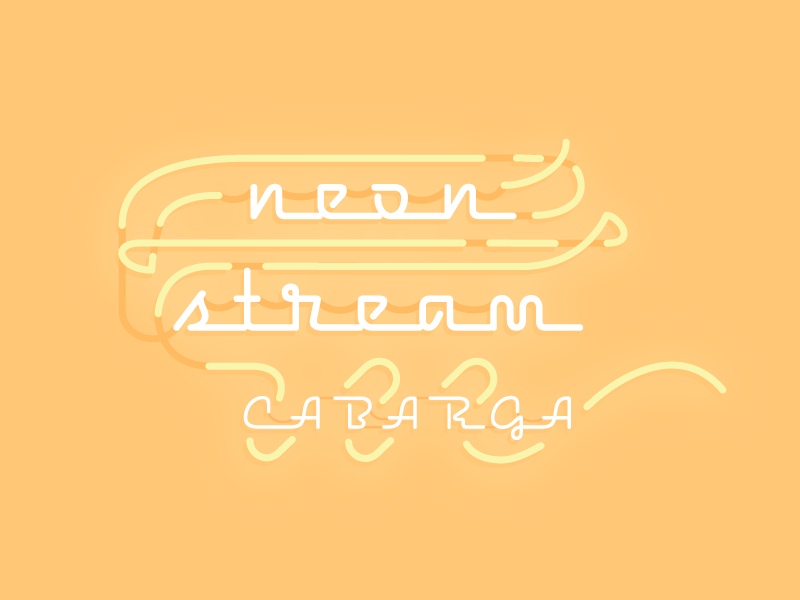
Neon Stream Font
Neon Stream Font is perfect for nightclub branding, electronic music festivals, cyberpunk game designs, retro arcade aesthetics, neon bar signage, synthwave album covers, streaming platform graphics, digital art exhibitions, futuristic movie titles, and electric energy drink packaging. This electrifying typeface excels in applications where vibrant energy, digital aesthetics, and luminous atmosphere are fundamental design elements.
Neon Stream Font is exciting because it captures the pulsating energy and electric atmosphere of neon-lit urban landscapes through its glowing letterforms and dynamic character flow. Its innovative construction features smooth curves that simulate the continuous flow of neon tubing, with optimized spacing and electric connections that create the illusion of luminous signage. The font's energetic personality delivers authentic neon aesthetics while maintaining exceptional readability across digital and print applications where vibrant impact is essential.
The Neon Stream Font family includes Regular, Bold, Outline, Glow, and Animated variations, each capturing different intensities of electric energy and neon luminosity. The family features specialized glow effects, electric connection elements, and cyberpunk-inspired decorative symbols that enhance the futuristic character. Advanced digital effects include gradient support, shadow variations, and layering options that create authentic neon lighting effects in design applications.
Professional designers appreciate Neon Stream Font for its ability to convey electric energy, futuristic atmosphere, and vibrant nightlife culture. The font's commanding presence works exceptionally well in entertainment applications where visual impact and energetic atmosphere are paramount. Its distinctive personality makes it perfect for brands seeking to communicate innovation, electric energy, and connection to contemporary digital culture.
The electric character of Neon Stream Font transforms ordinary communications into luminous experiences that capture the essence of neon-lit nightlife and digital energy. Its authentic glow appeal resonates with audiences seeking vibrant entertainment while maintaining professional design standards for contemporary digital and entertainment applications.